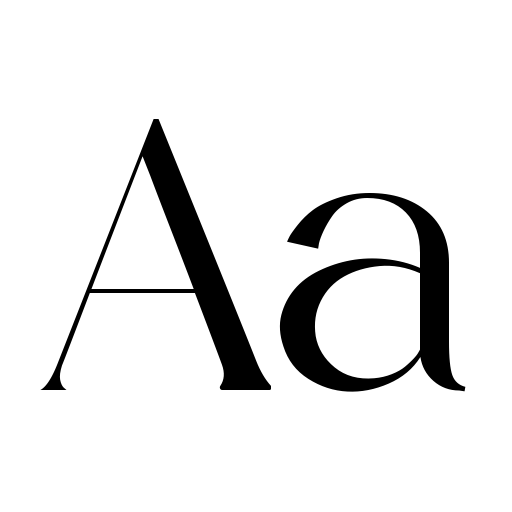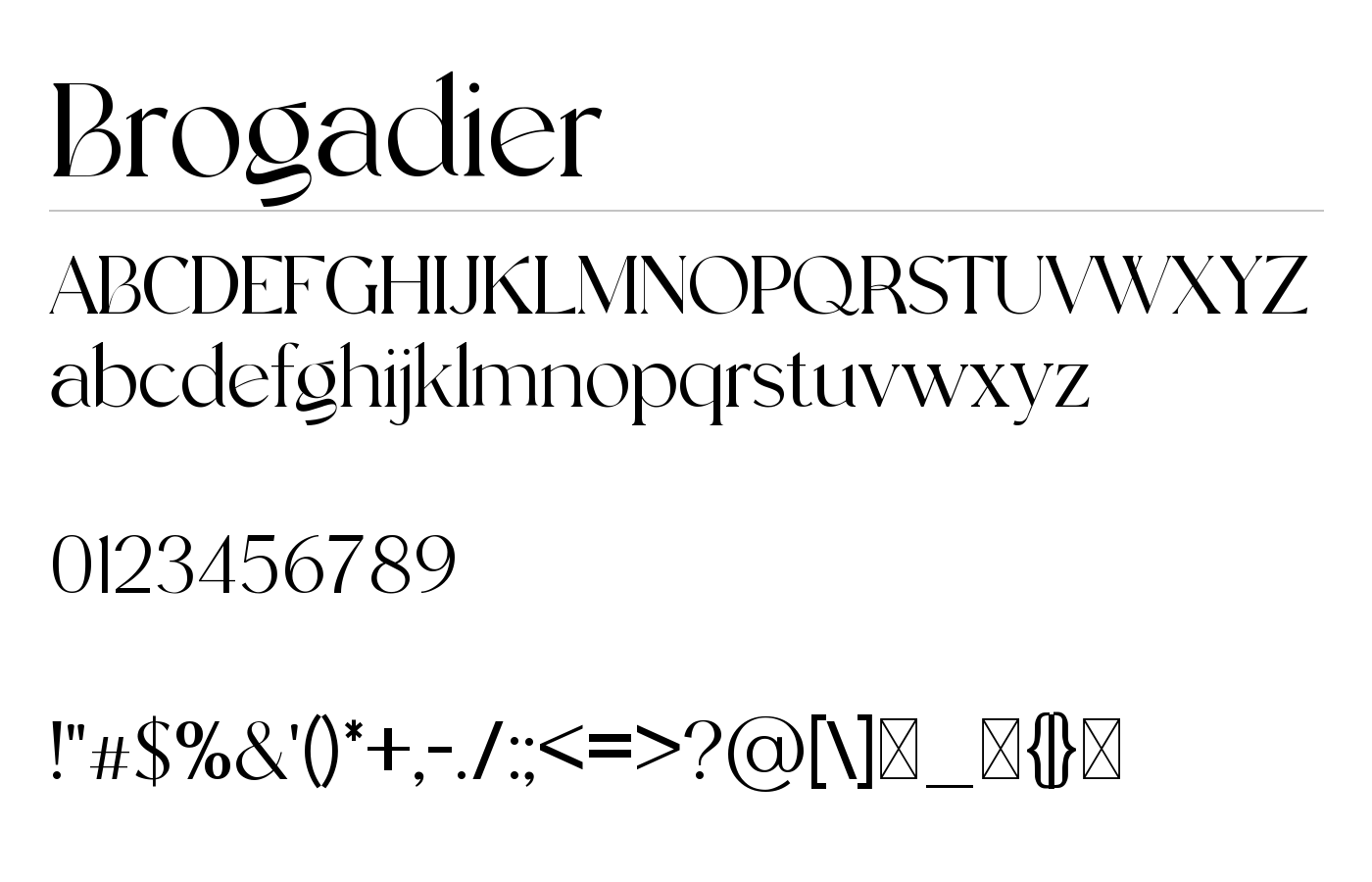
Brogadier is an elegant serif font characterized by its high contrast between thick and thin strokes and refined, delicate serifs that reflect a classic, transitional style. Its slender letterforms and distinctive details, like the curved tail on the lowercase 'g' and sharp terminals, give it a sophisticated and timeless feel, perfect for luxury branding, editorial headlines, and upscale packaging. This font combines traditional elegance with modern clarity, making it a great choice for designs aiming to convey refinement and class.
Brogadier Font
About Brogadier Font